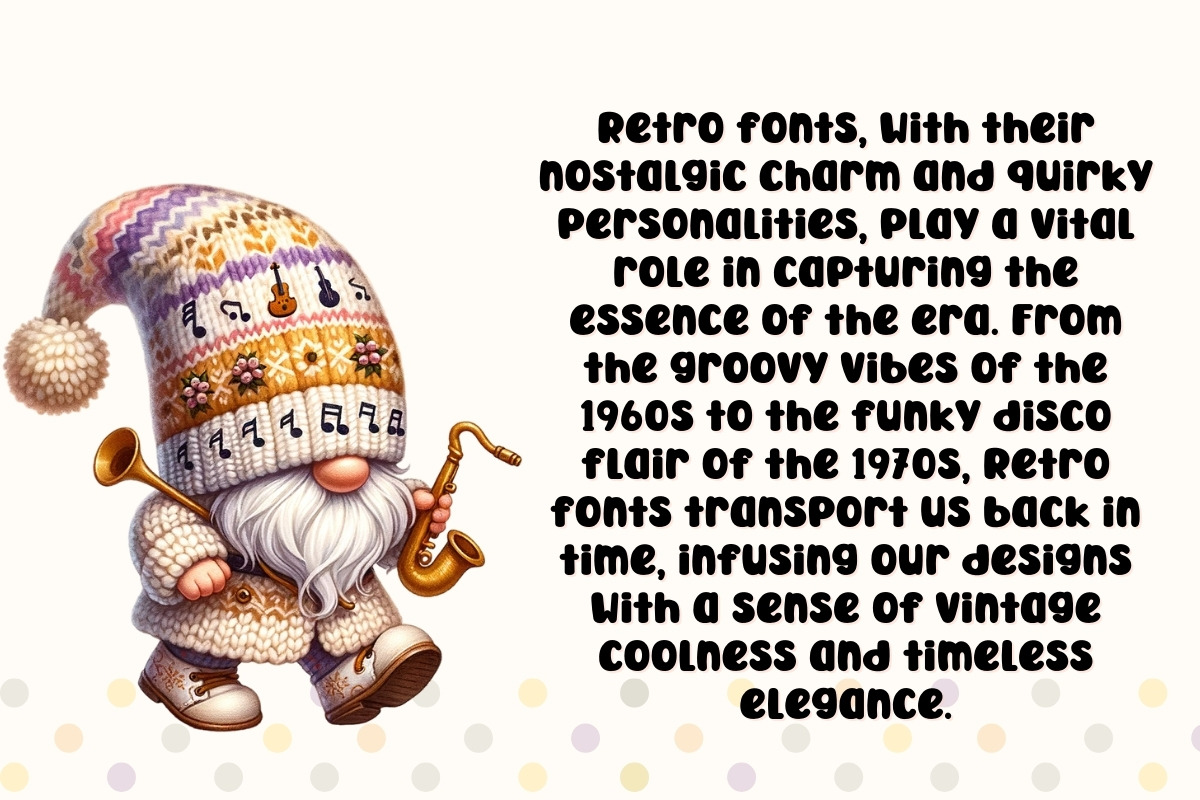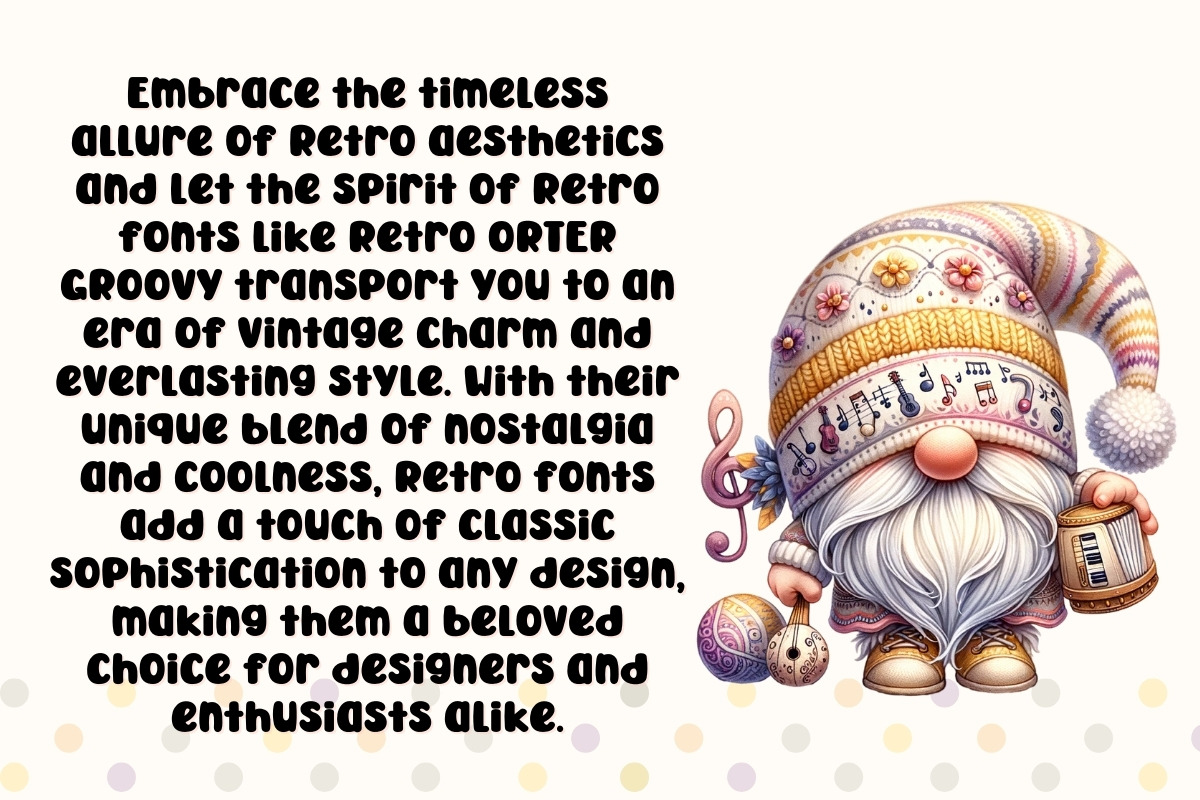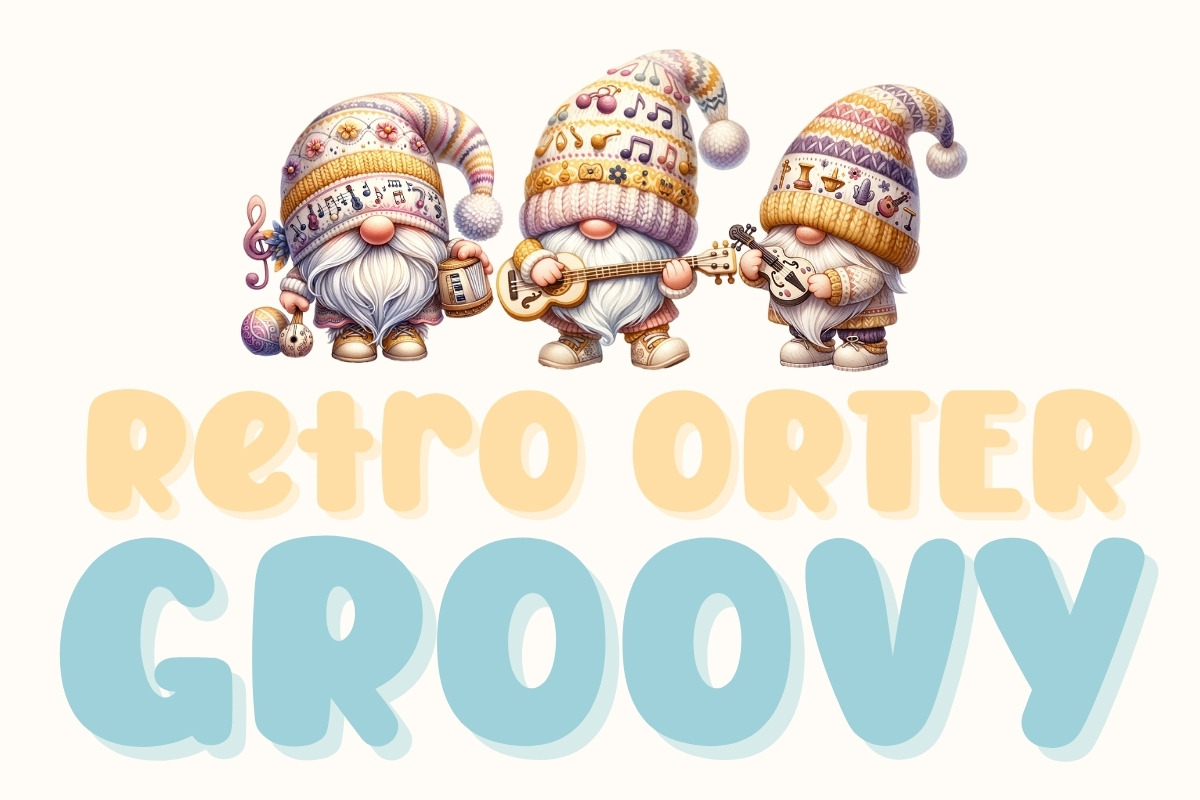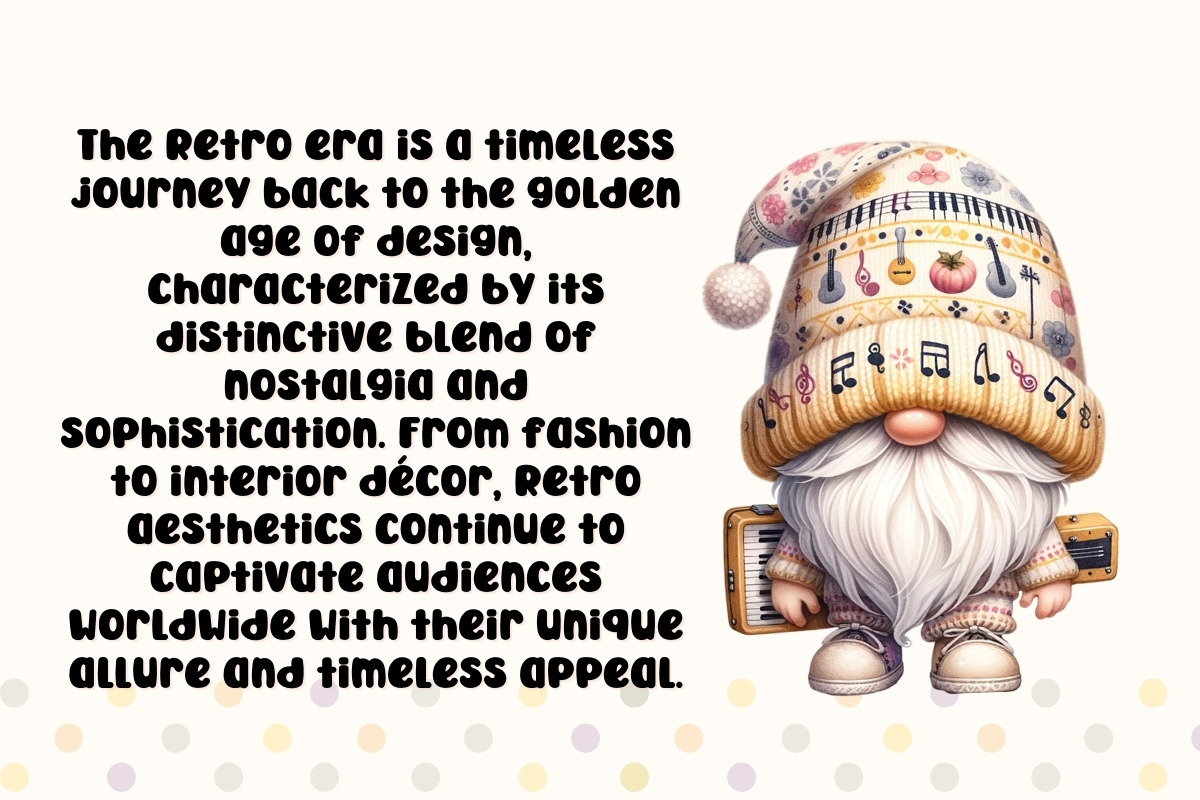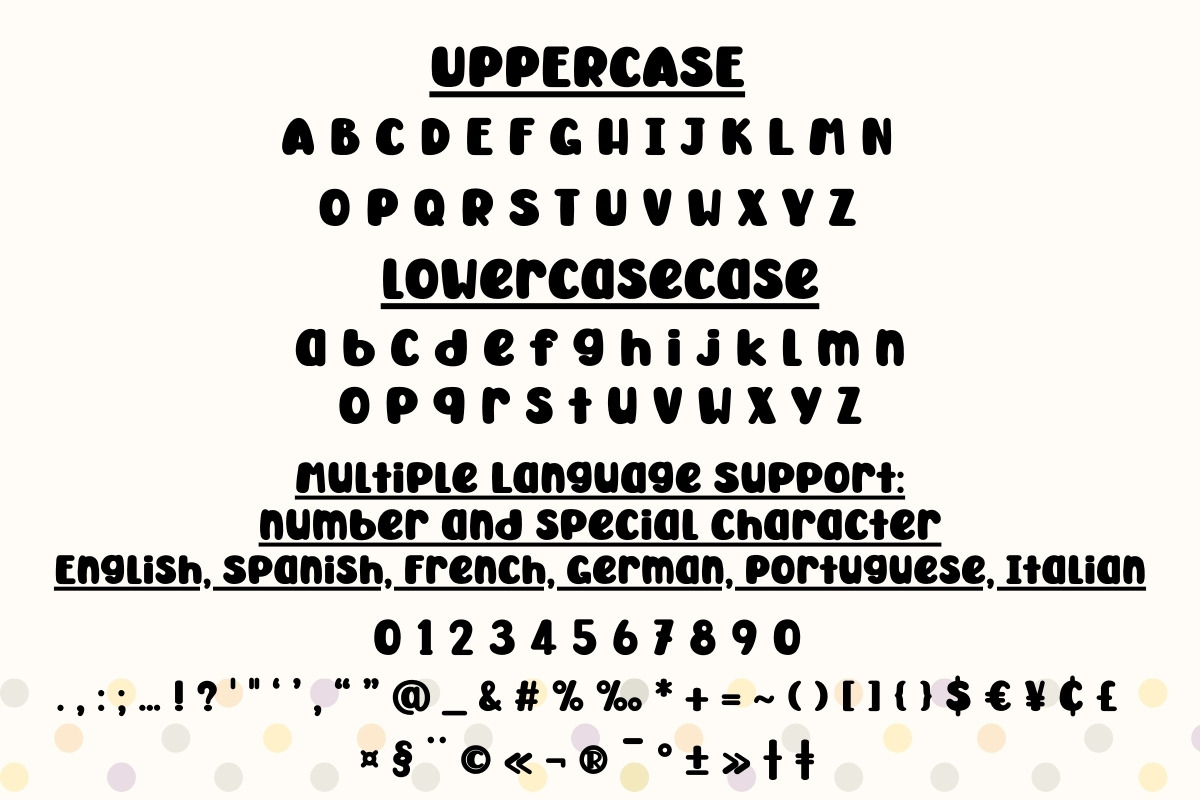
Retro ORTER GROOvy - Handwritting
Transport yourself back in time with "Retro ORTER GROOvy," a font that channels the spirit of the '70s. Its vibrant and expressive letters capture the essence of the disco era, making it perfect for adding a retro touch to invitations, apparel, and more.